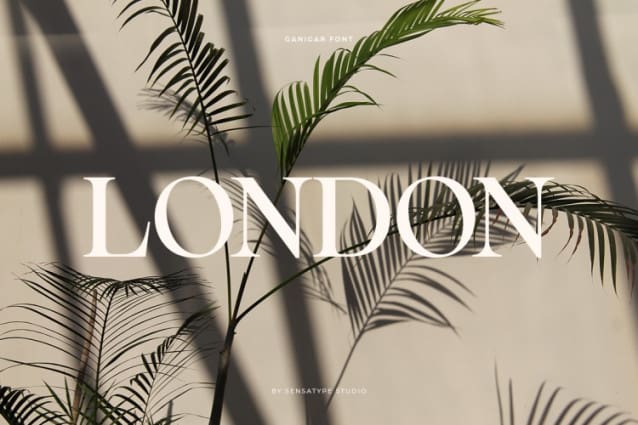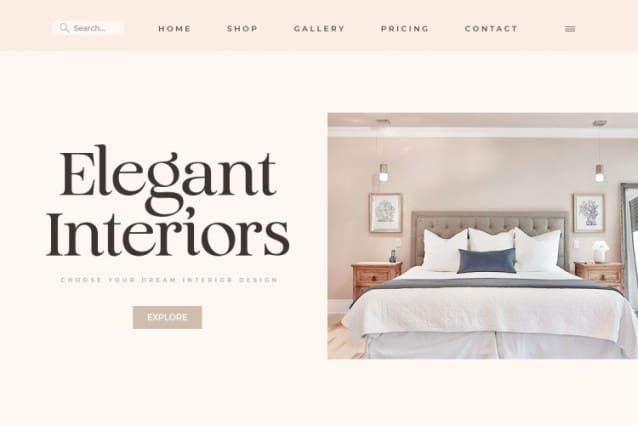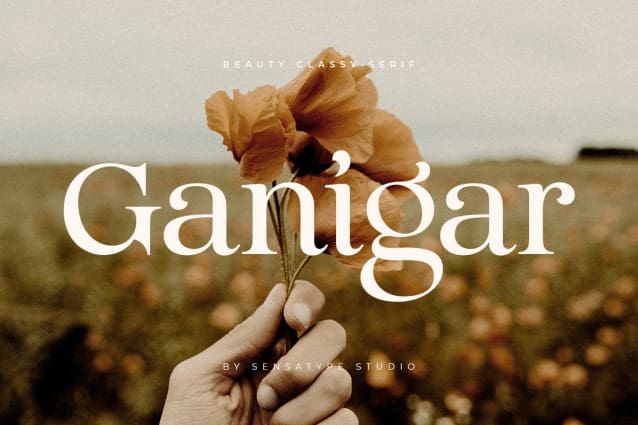
Ganigar Font
Ganigar Font, An Beauty Classy Serif font that we created special for unique branding needs, with classy shape will be ready to add value of your brand. It so nice to leverage designer or product owner that need solutions to make their design look more standout and modern. And specially for this font, We prepared any characters to help you create unlimited variations for your creative needs.